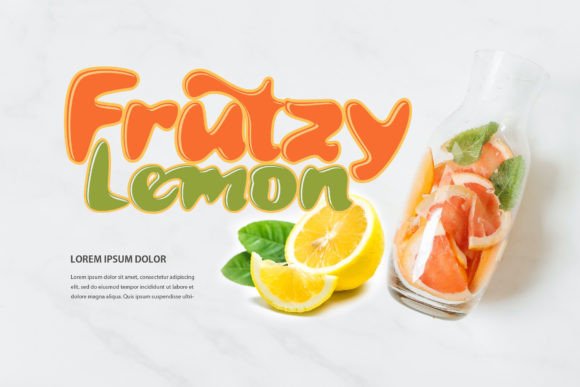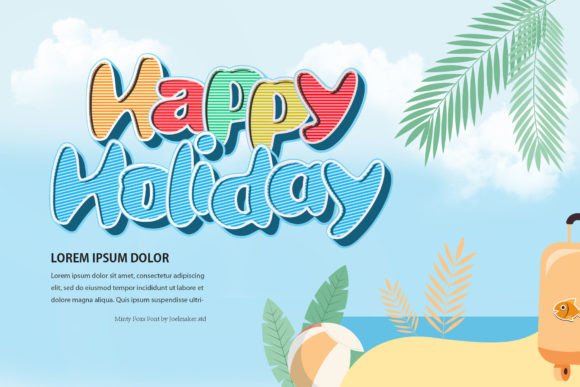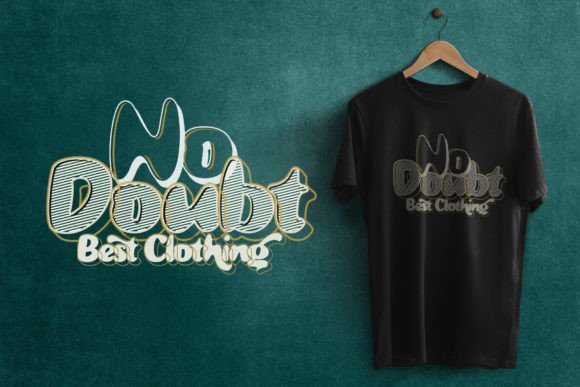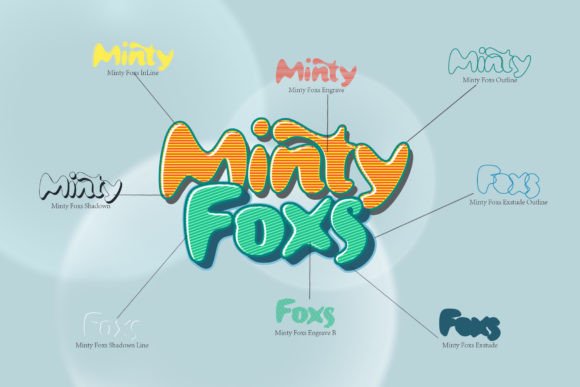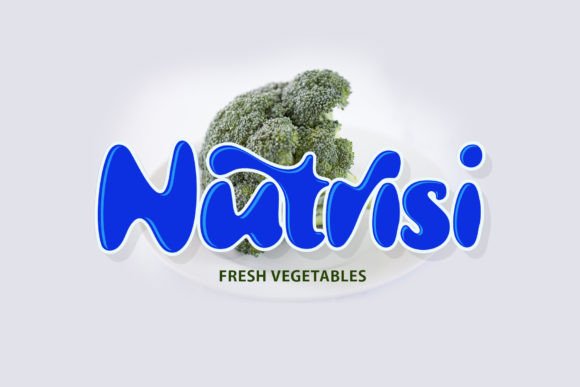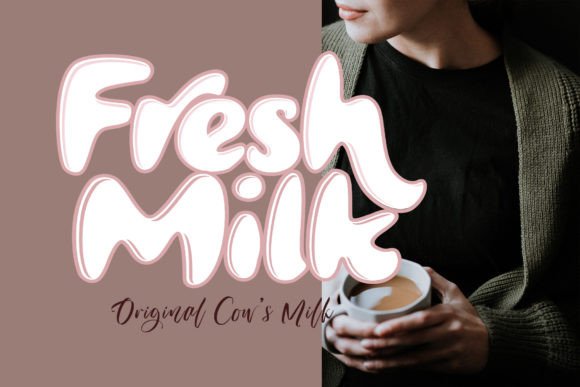
Introduction to Minty Foxs Font
Have you ever been working on a creative project and suddenly felt stuck, unable to find the perfect font to bring your vision to life? You scroll through design resources, searching for something that sparks inspiration, and then – it hits you. A bold, playful, and modern font that grabs your attention and makes you smile. For many designers, this is exactly what Minty Foxs Font offers.
With its unconventional design and quirky shapes, Minty Foxs Font is a game-changer for any project seeking a fun and contemporary aesthetic. Whether you’re working on a logo, social media graphics, or a website, this high-quality font is sure to leave a lasting impression. And the best part? It’s available for free download, making it a valuable resource for designers of all levels.
Key Features of Minty Foxs Font
- High-quality design resource with a unique, playful style, ideal for creative projects.
Honest Review: Minty Foxs Font
I recently stumbled upon Minty Foxs Font while searching for a unique design resource for my creative project. Initially, I was drawn to its elegant and playful vibe, which I thought would be perfect for a children’s book cover.
Here are some of the things I like about Minty Foxs Font:
- ✨ High-quality design that looks great on a transparent background.
- ⚠️ Limited character set, which might not be suitable for longer text-based projects.
- ⚠️ Not ideal for professional or formal designs, as it has a more playful tone.
Overall, I’m quite impressed with Minty Foxs Font. It’s a great design resource for personal projects or creative endeavors where you need a fun and unique font. Just keep in mind its limitations and use it accordingly.
Common Use Cases for Minty Foxs Font
Minty Foxs Font is perfect for a wide range of design projects, including logos, graphics, illustrations, and presentations. It’s also a great choice for creating custom typography and other visual elements for your creative project.